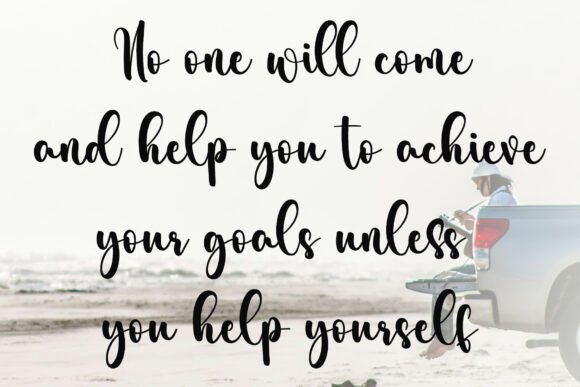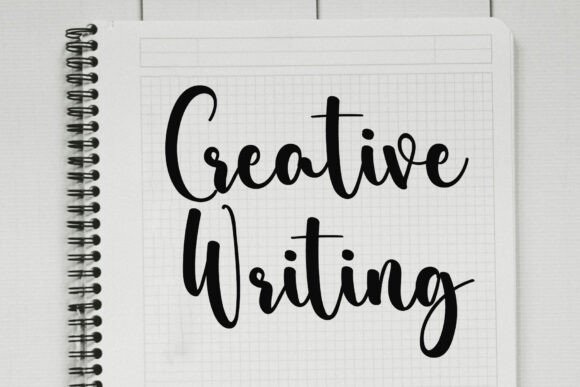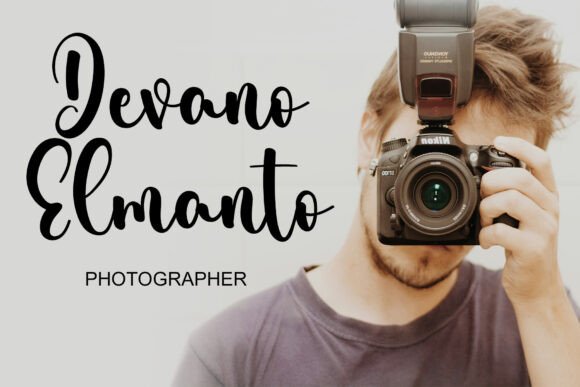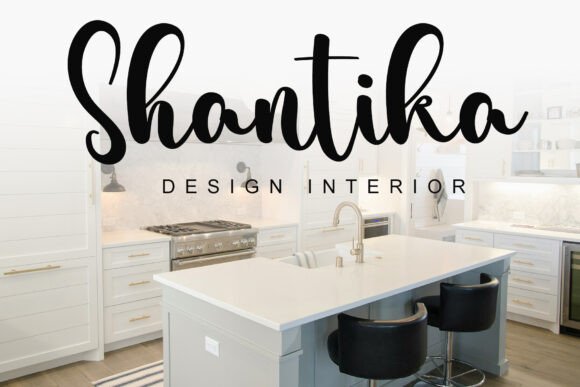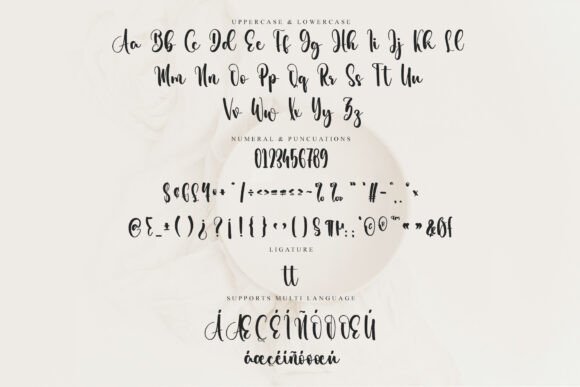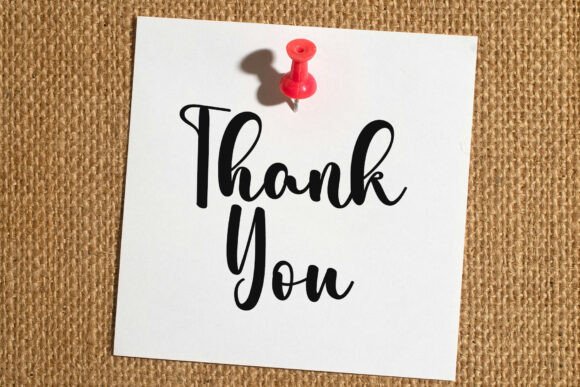
Introduction to Missing Christmas Font
As I sat at my desk, surrounded by scraps of paper and half-finished designs, I stumbled upon the perfect solution for my next creative project – the Missing Christmas Font. Its characterful and cute handwritten style immediately caught my attention, and I knew it was exactly what I needed to bring a soft, whimsical touch to my design.
With the Missing Christmas Font, designers can create truly unique and eye-catching designs that stand out from the crowd. Whether you’re working on a wedding invitation, card, or any other project that requires a high-quality design resource, this font is the perfect choice. And with its PUA encoded feature, accessing all the glyphs and ligatures is a breeze, allowing you to customize your design to perfection.
Key Features of Missing Christmas Font
- Includes a range of festive characters, including ornaments, icons, and special characters, perfect for adding a touch of Christmas magic to your design.
- Designed with a modern and elegant style, making it suitable for various creative projects, from greeting cards to web design.
- Perfect for designers looking for a unique and creative way to add a Christmas theme to their designs, without compromising on quality.
Honest Review: Missing Christmas Font
As a designer, I’m always on the lookout for unique and high-quality design resources to elevate my creative projects. The Missing Christmas Font caught my attention, and I’m excited to share my honest review.
- ✨ High-quality design that captures the festive spirit of Christmas
- ✨ A wide range of characters, including uppercase and lowercase letters, numbers, and punctuation
- ⚠️ Limited customization options, which might not appeal to designers who like to tweak their fonts
Overall, I think the Missing Christmas Font is a great addition to any designer’s toolkit. While it has its limitations, its high-quality design and free download make it a valuable resource for creative projects. With a little creativity, I think designers can work around the limitations and create stunning designs with this font.
The Missing Christmas Font is a versatile design resource that can be used for a variety of creative projects, including holiday cards, gift tags, and social media graphics. Its high-quality design makes it perfect for use in presentations, brochures, and other marketing materials.